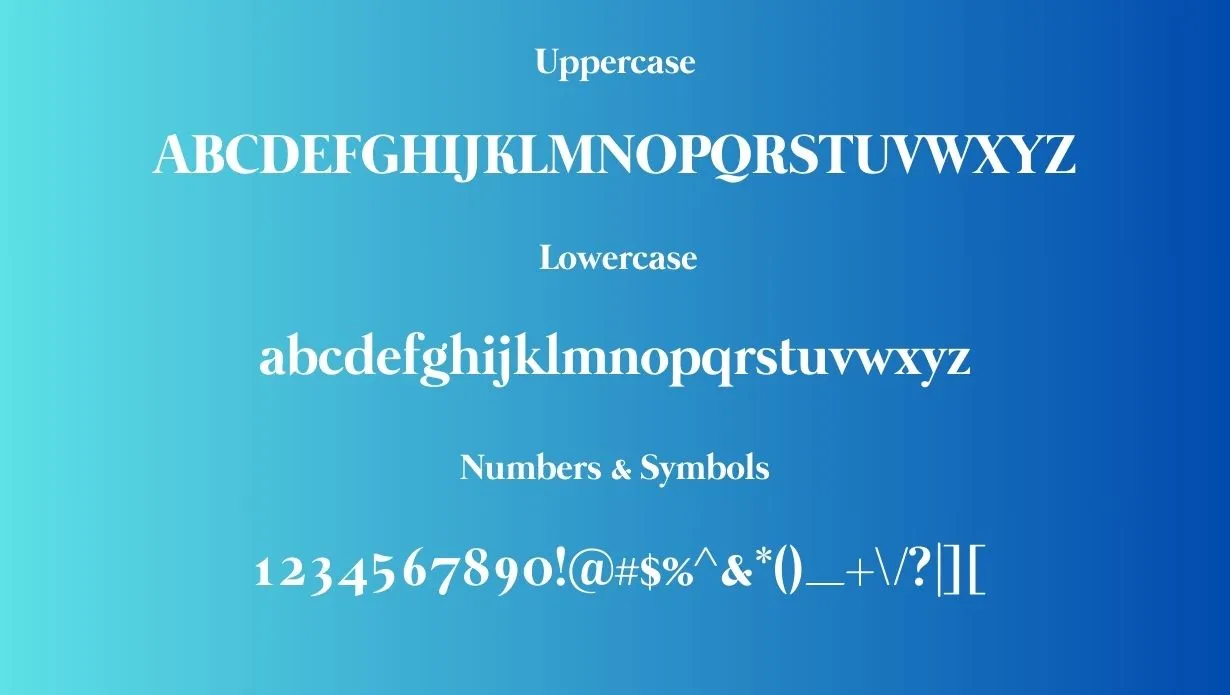
Mermaid Font is a playful and decorative typeface known for its whimsical and imaginative design. It’s often used in projects aiming to evoke a sense of magic and wonder, such as children’s books, fantasy-themed designs, and creative branding.
The unique and charming letterforms of Mermaid Font add an element of enchantment to your design work, making it the perfect choice for projects that seek to transport the audience to a world of fantasy and creativity. To achieve an exclusive and eye-catching design, it is essential to pair this font with the Playfair Display Font.
| Name | Mermaid Font |
| Designer | Scott Simpson |